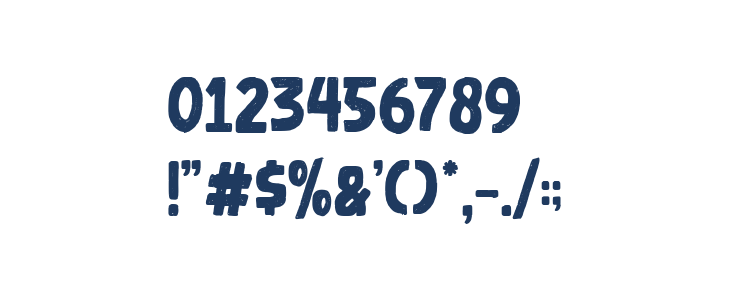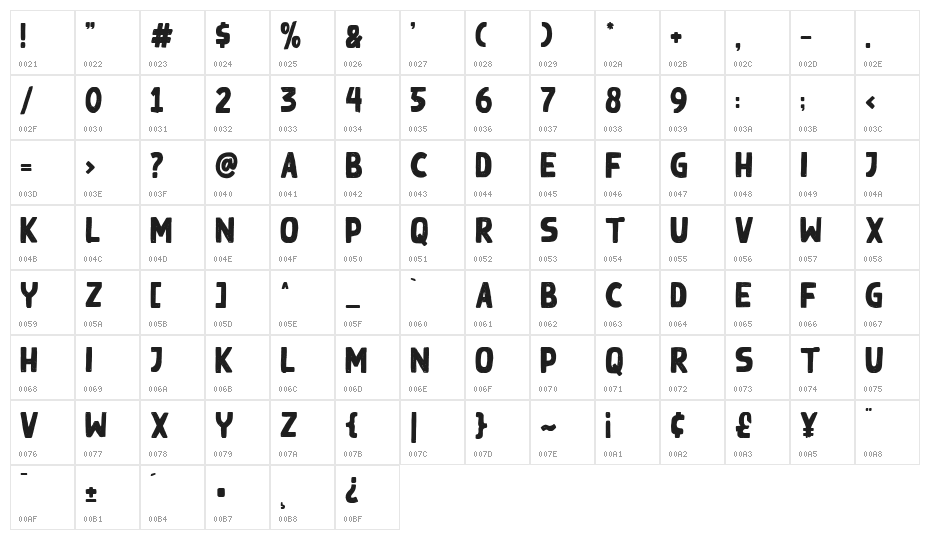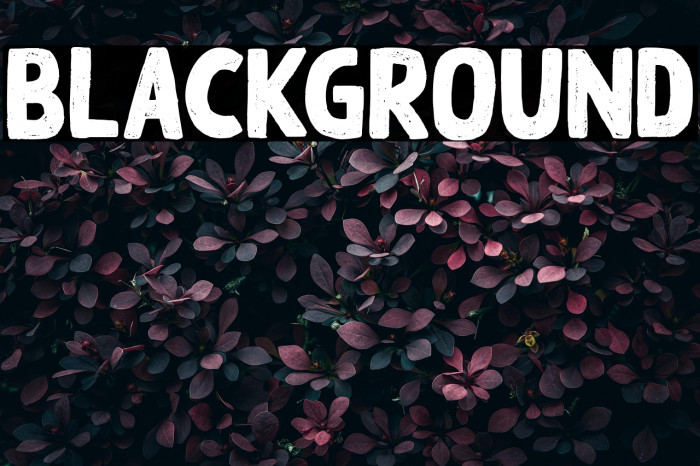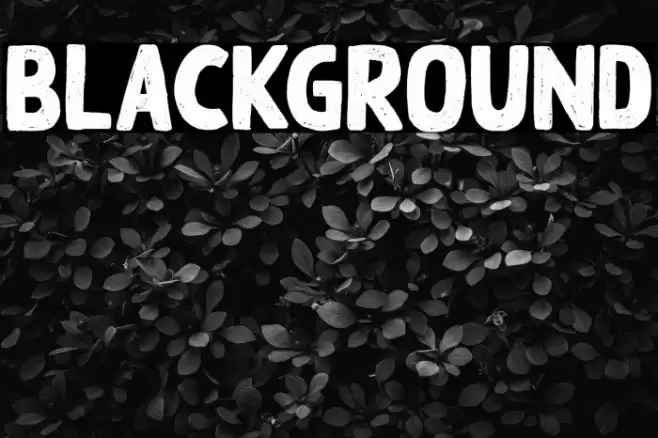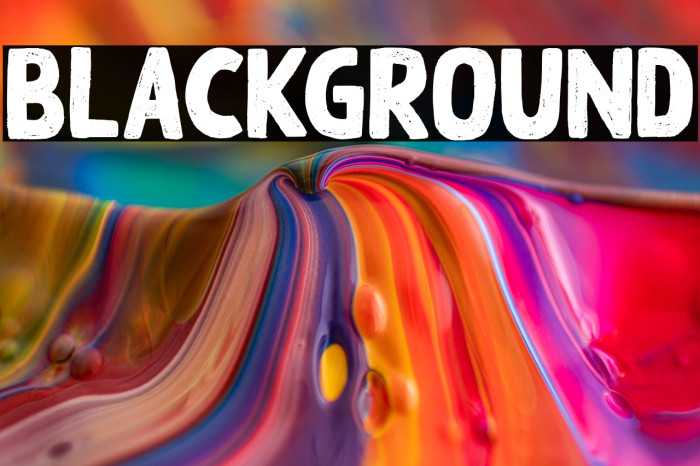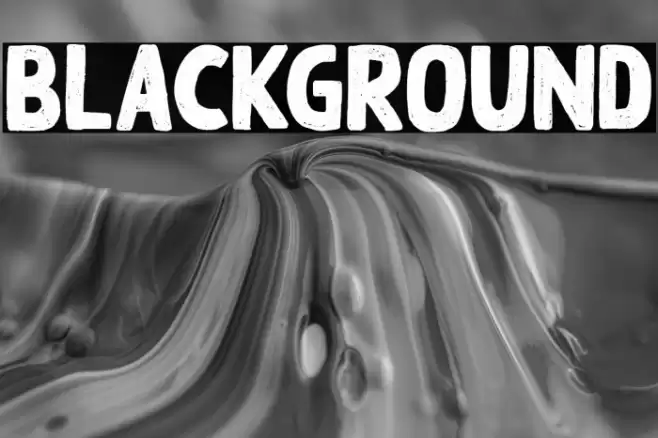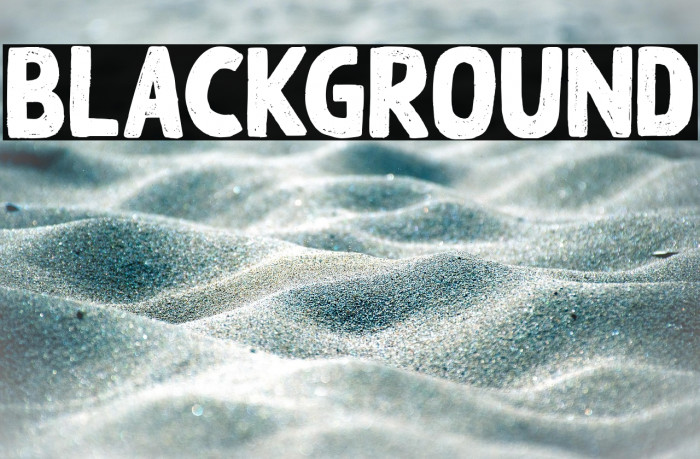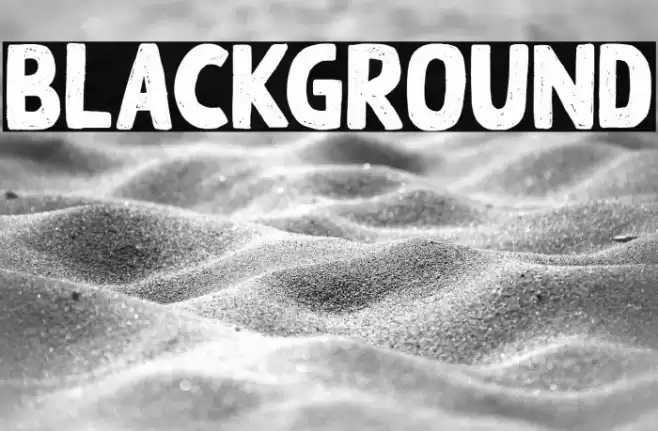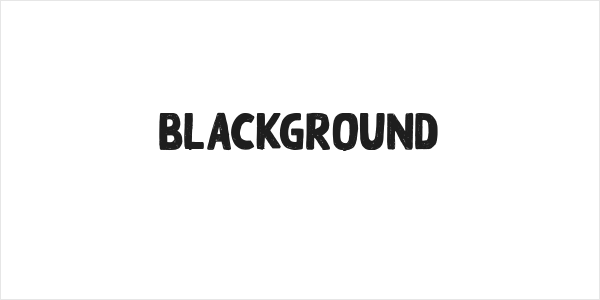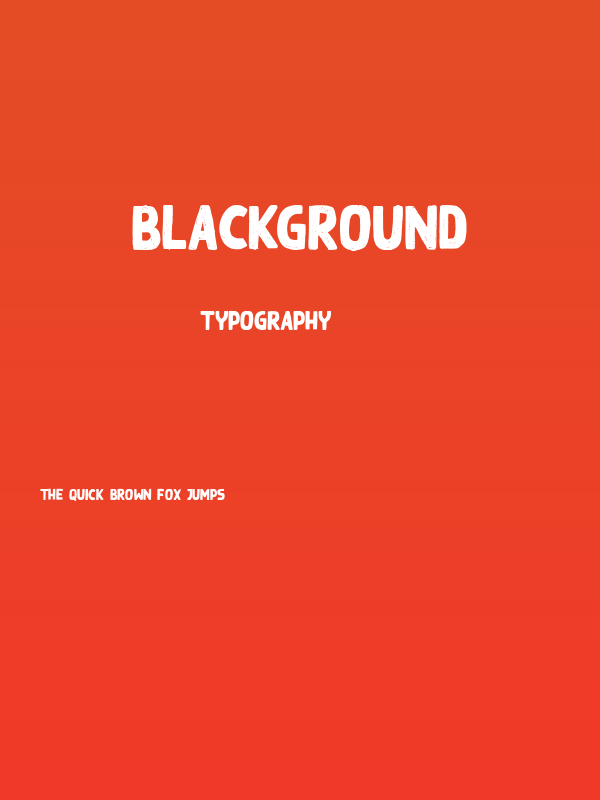
BlackGround Font
BlackGround Description
This font features a bold, hand-drawn style with a slightly distressed texture, giving it a rugged and organic appearance. The characters are thick and blocky, with rounded edges that soften the overall look. The uppercase and lowercase letters maintain a consistent weight, contributing to a cohesive design. Numbers and special characters are designed with the same boldness, ensuring uniformity across all elements. The font's playful yet strong aesthetic makes it suitable for projects that require a touch of personality and creativity.
| Proposed Projects | Ideal for posters, branding, packaging, and any creative projects that need a bold, handmade touch. |